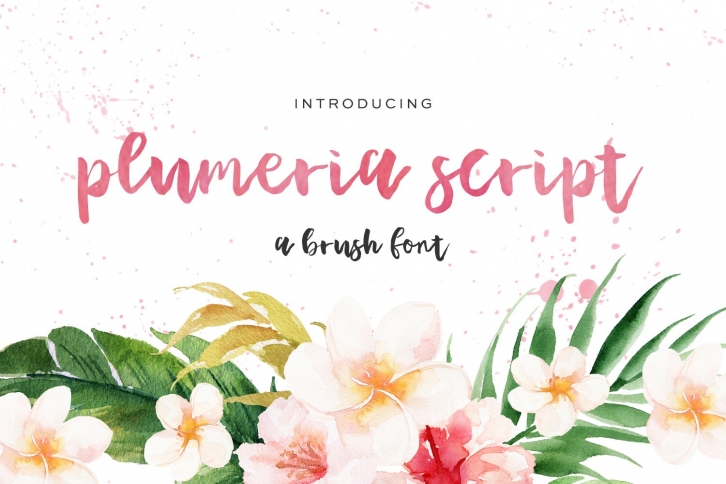
Introducing Plumeria Script, a brush font.
Growing up beachside with plumeria flowers and hibiscus everywhere you looked is sort of like living in a tropical dream. A little funky & irregular, Plumeria Script is still beautiful & unique like the blooms on each plant. Plumeria Script would be perfect for greeting cards, edgy branding projects, t-shirts & quote graphics.
Plumeria Script includes Western European language support.